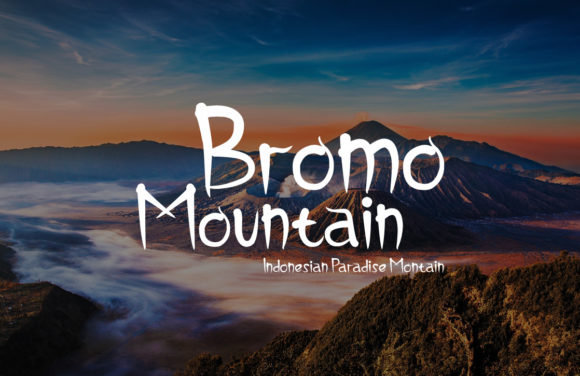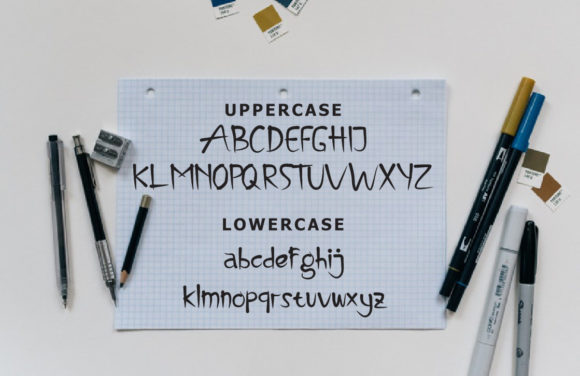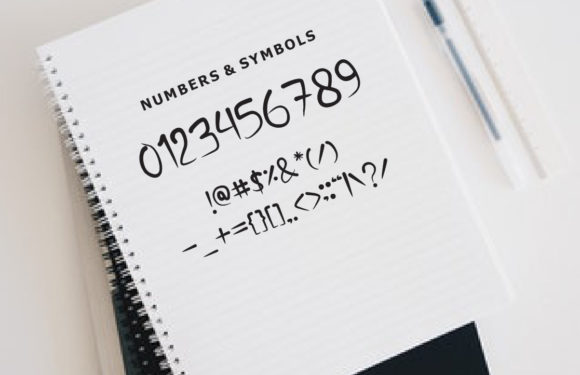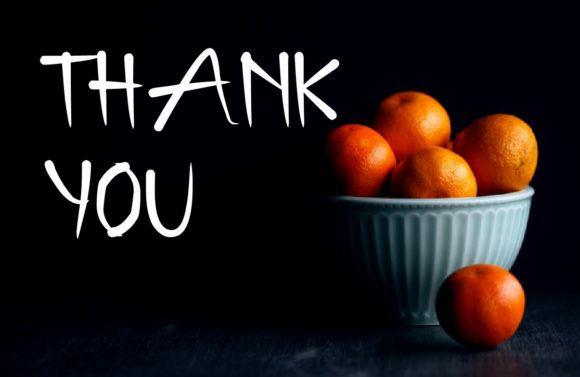
Introduction to Fachranheit Font
The Fachranheit is a natural brush display font.
It can be used for quotes, brochures, posters, headlined, and every other design which needs a typeface with a great readability .
Key Features of Fachranheit Font
Why Choose Fachranheit Font?
Fachranheit Font offers exceptional quality and versatility, making it a valuable addition to your design toolkit. Whether you’re creating for personal projects or commercial use, Fachranheit Font delivers professional results.